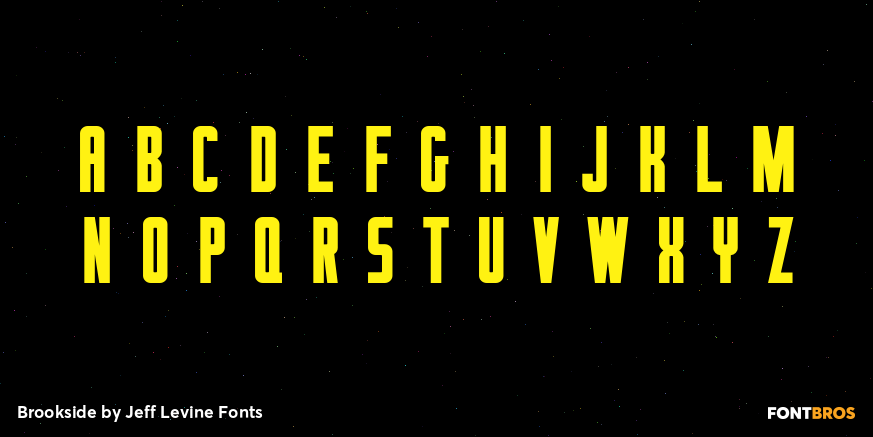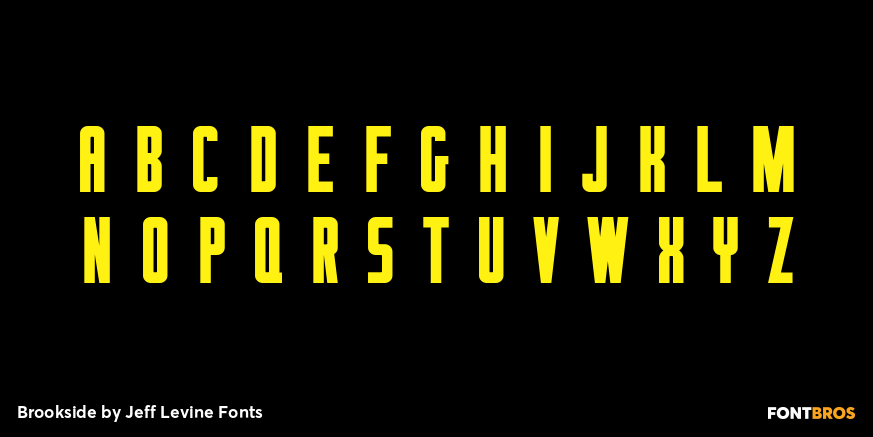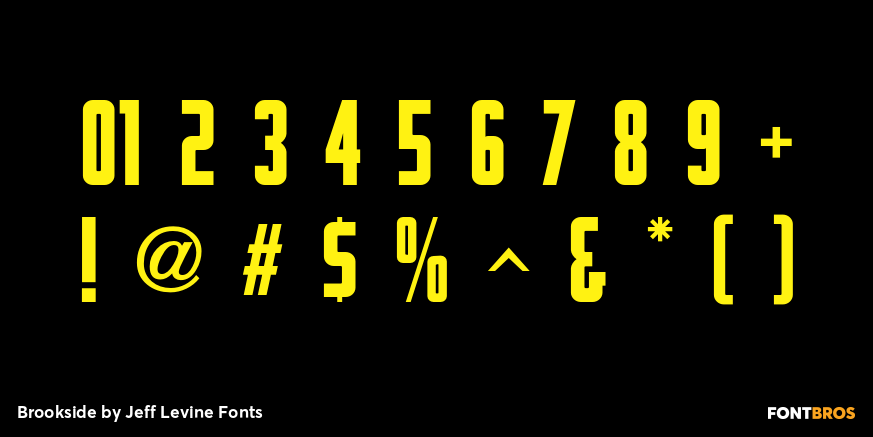
Brookside
The 1920s were part of an era in songwriting where snappy wordplay and clever (if not long) titles prevailed. The lettering on one such piece of sheet music with the song title 'In A Shady Nook by A Babbling Brook” offered up a bold, condensed sans serif design which is now available digitally as Brookside JNL.
Brookside by Jeff Levine Fonts